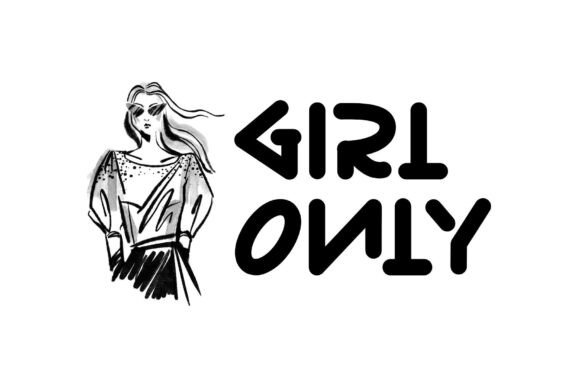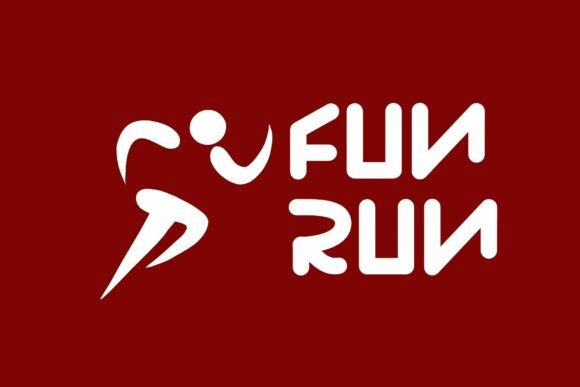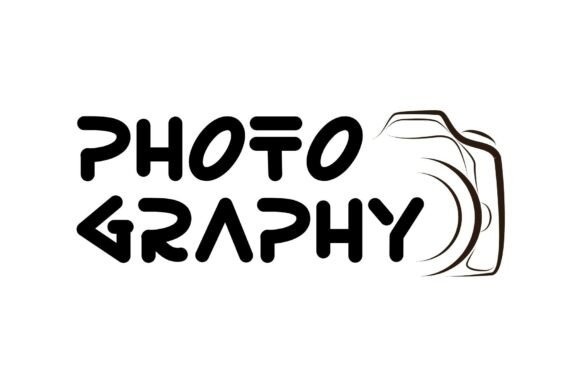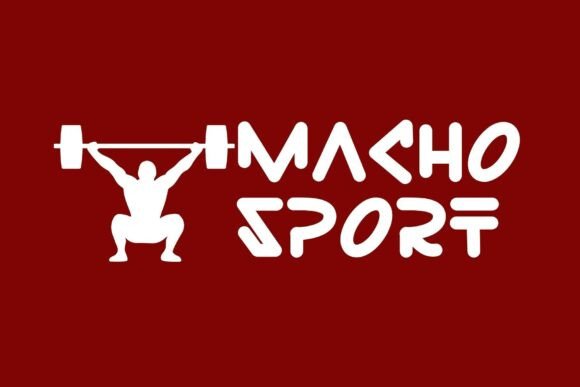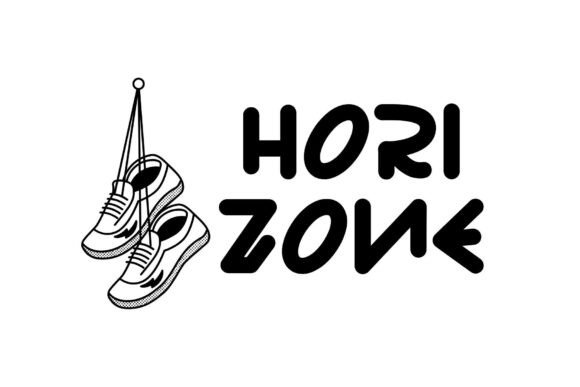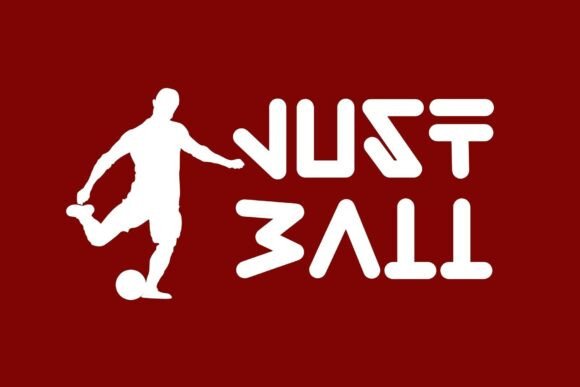
Introduction to Just Logo Font Font
Fonts play a crucial role in design, and the Just Logo Font font is a typeface that brings both character and versatility to any project. Whether you’re working on a branding project, a website, or a print design, the Just Logo Font font offers a unique style that can elevate your work.
Just Logo is a modern futuristic style with a strong geometric minimalist approach.
Each character is crafted with bold lines, smooth curves, and unique shapes, creating a visual identity that feels innovative, tech-driven, and highly creative It is perfectly suited for logos, branding, digital content, and sci-fi or technology-themed designs.
The Just Logo Font font is more than just a typeface – it’s a design tool that helps you communicate your message with style and clarity. Its unique character set and versatile design make it suitable for a wide range of applications, from elegant invitations to bold headlines.
With its carefully crafted letterforms and balanced proportions, the Just Logo Font font ensures readability and visual appeal across all mediums.
The Just Logo Font font stands out with its unique design, exceptional readability, and versatility across various design applications.